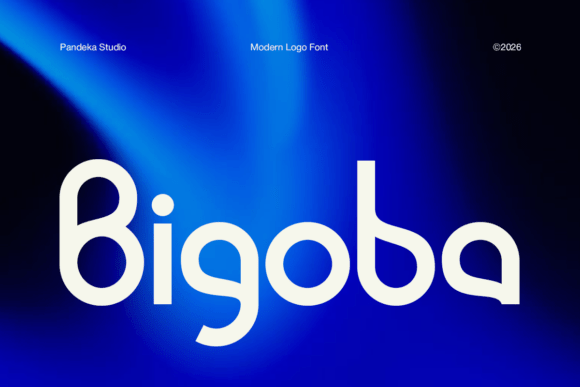
Introducing Bigoba Font: The Ultimate Modern Logo Font for Futuristic Brands
In the world of logo design, a font can make all the difference in creating a lasting impression. Bigoba Font is a modern logo font that has been making waves in the design community with its sleek, futuristic, and highly versatile aesthetic. Built with clean geometric shapes and smooth curves, Bigoba delivers a strong visual identity that is perfect for brands looking to make a statement in modern and tech-driven industries.
Design Characteristics of Bigoba Font
Bigoba Font boasts a balanced structure and unique letterforms that set it apart from other fonts. Its clean geometric shapes and smooth curves create a harmonious blend of modernity and sophistication, making it an ideal choice for logos, branding, and visual identities. The font’s sleek lines and curves evoke a sense of futurism, perfect for brands that want to convey innovation, technology, and forward-thinking.
Perfect for Modern and Tech-Driven Industries
Bigoba Font is specifically designed for modern and tech-driven industries, where a strong visual identity is crucial for standing out in a crowded market. Its futuristic aesthetic makes it perfect for:
- Logo Design: Create standout logos that make a lasting impression with Bigoba’s unique letterforms and balanced structure.
- Tech Branding: Establish a strong brand presence in the tech industry with a font that exudes innovation and modernity.
- Startups: Give your startup a professional and futuristic look with Bigoba’s sleek and modern aesthetic.
- UI/UX: Enhance user experiences with a font that is both visually appealing and highly legible.
- Digital Products: Create a strong visual identity for digital products and services with Bigoba’s futuristic font.
- Corporate Identity: Establish a modern and sophisticated brand image with Bigoba’s clean and elegant design.
- Futuristic Visual Concepts: Bring your futuristic visual concepts to life with a font that is designed to evoke a sense of innovation and forward-thinking.
Why Choose Bigoba Font?
Bigoba Font offers a range of benefits that make it an attractive choice for designers and crafters. Here are just a few reasons why:
- Unique Design: Bigoba’s unique letterforms and balanced structure set it apart from other fonts, ensuring that your brand stands out in a crowded market.
- Highly Versatile: Bigoba Font is highly versatile, making it suitable for a wide range of design applications, from logo design to digital products.
- Modern Aesthetic: Bigoba’s modern aesthetic ensures that your brand looks contemporary and forward-thinking, perfect for modern and tech-driven industries.
- Easy to Read: Bigoba Font is highly legible, making it easy for users to read and navigate.
Tips for Using Bigoba Font
To get the most out of Bigoba Font, here are a few tips to keep in mind:
- Use it bold: Bigoba Font looks great in bold, making it perfect for headings and titles.
- Experiment with colors: Bigoba Font works well with a range of colors, so don’t be afraid to experiment and find the perfect combination for your brand.
- Pair it with other fonts: Bigoba Font pairs well with other fonts, making it easy to create a unique and visually appealing typography.
Bigoba Font is a modern logo font that is perfect for brands looking to create a strong visual identity in modern and tech-driven industries. Its unique design, highly versatile aesthetic, and modern look make it an attractive choice for designers and crafters. Whether you’re looking to create a standout logo, establish a strong brand presence, or bring your futuristic visual concepts to life, Bigoba Font is the ultimate choice.